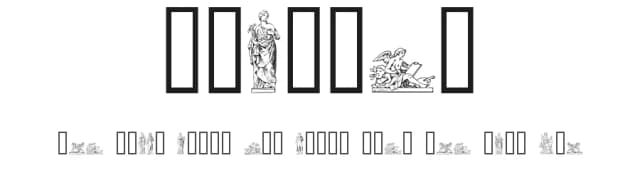
About Tropicana Font
Tropicana is a decorative font designed by Listemageren. It includes 66 glyphs, a regular weight, TTF (TrueType) format, and 89 languages. Tropicana is free to download; check the license details on this page before commercial use. Decorative fonts like Tropicana work best for logos, posters, packaging, and standout headlines.
Tropicana Font is a decorative font that shines as a display or heading face. Pair it with a clean sans-serif or serif font for body text β the contrast creates a clear hierarchy while the two styles stay balanced and easy to read.
Tropicana Font
by Listemageren
Tropicana Font is a decorative typeface by Listemageren, ideal for logos, invitations, branding, and creative projects.